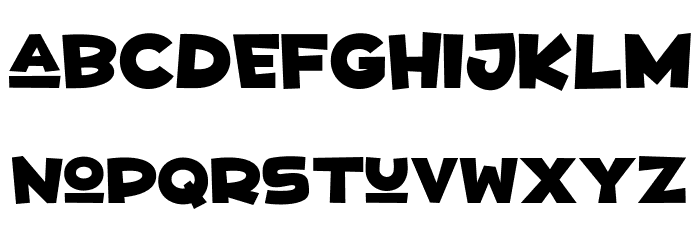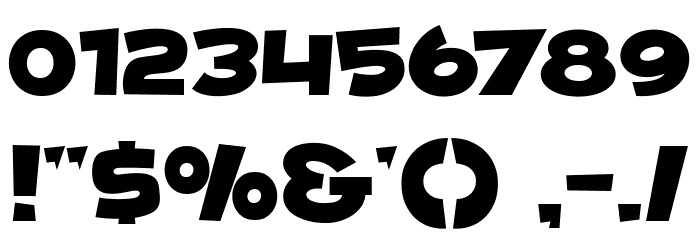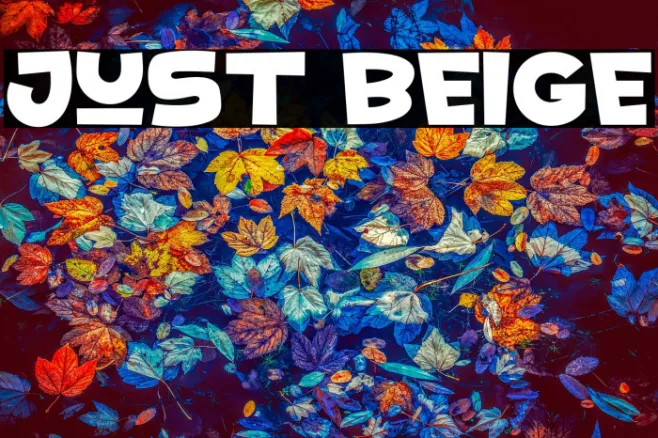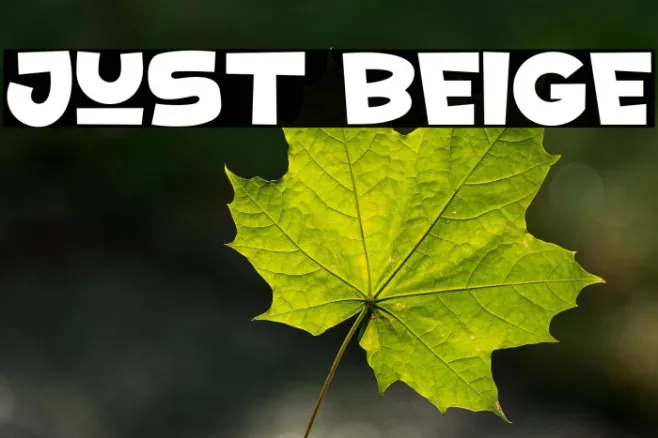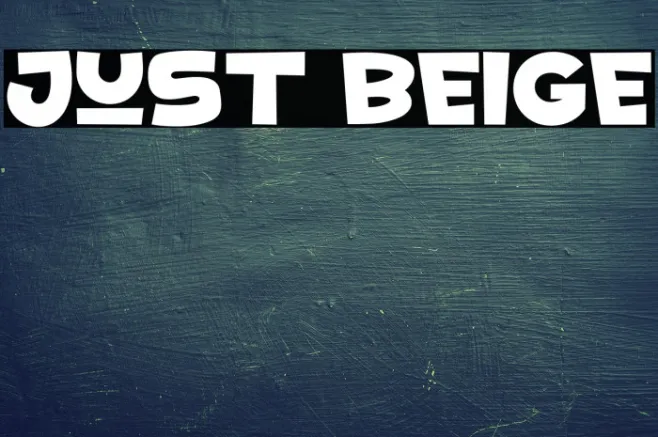
Just Beige Font
This font features a bold and playful design with exaggerated, uneven strokes that give it a whimsical and dynamic appearance. The characters are wide and robust, with a slightly irregular shape that adds to its quirky charm. The uppercase and lowercase letters maintain a consistent style, while the numbers and special characters are equally bold and expressive. The font's unique style makes it stand out, making it ideal for projects that require a fun and eye-catching typeface.
A bold, playful font with exaggerated strokes and a whimsical design.
- Proposed Projects: Ideal for children's books, comic strips, playful branding, and event posters.
- Width: Expanded